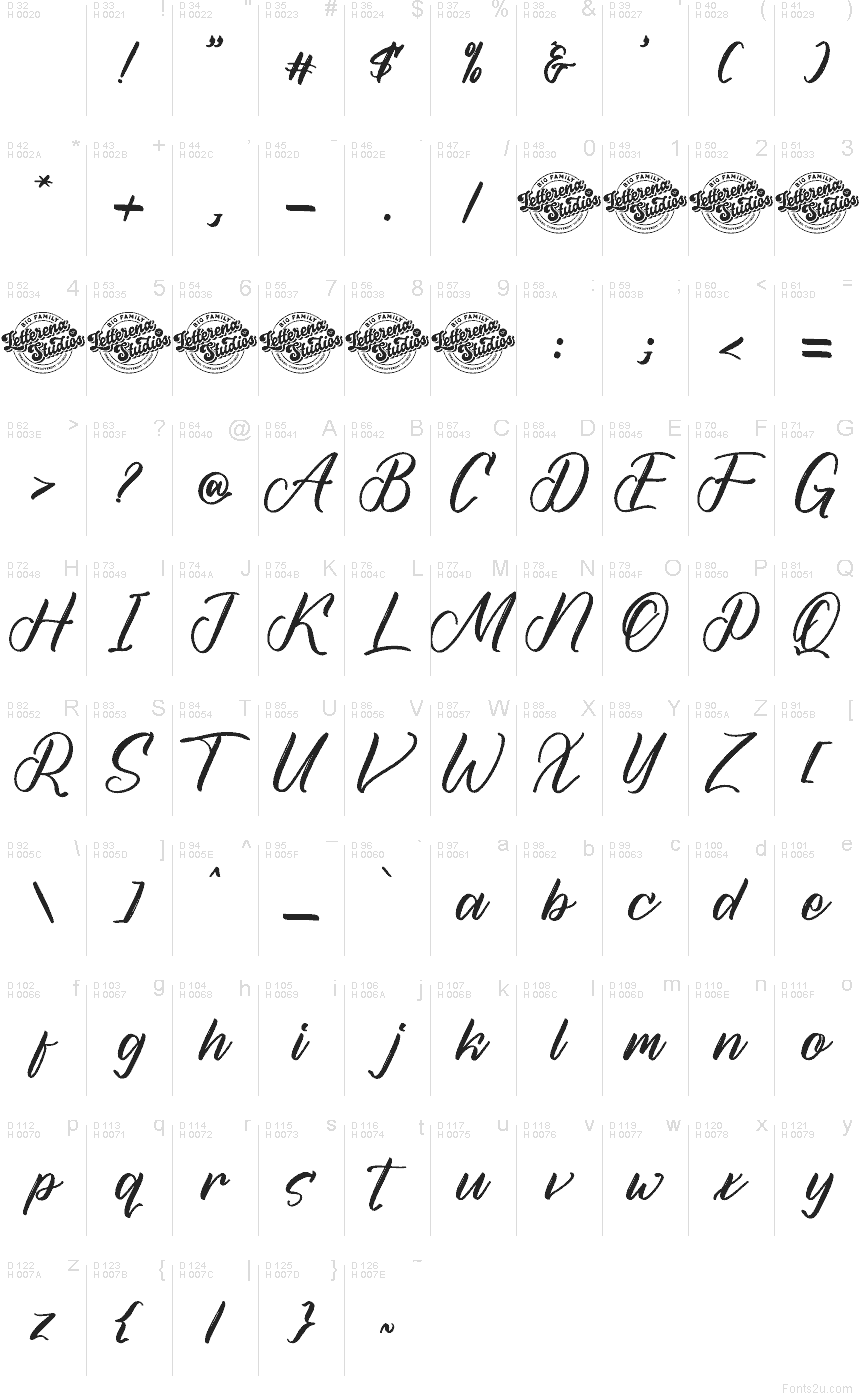
Alldegha Ramture DEMO VERSION
Alldegha Ramture font by Letterena Studios is a free handwritten script typeface that feels like it was brushed straight onto smooth cardstock. Its flowing strokes, gentle slant, and slightly textured curves give it that polished, modern calligraphy vibe—elegant but not stiff. The letters connect in a natural rhythm, adding a sense of movement that reads as personal and luxurious at the same time.
Using Alldegha Ramture, you can bring a refined touch to wedding invitations, save-the-dates, logo marks, product labels, social media graphics, and feminine packaging. This free font shines on names, headlines, and short phrases, especially when paired with a clean sans serif for body text. Set it a bit larger than usual to show off the sweeping forms, and let generous spacing around it give the script room to breathe.